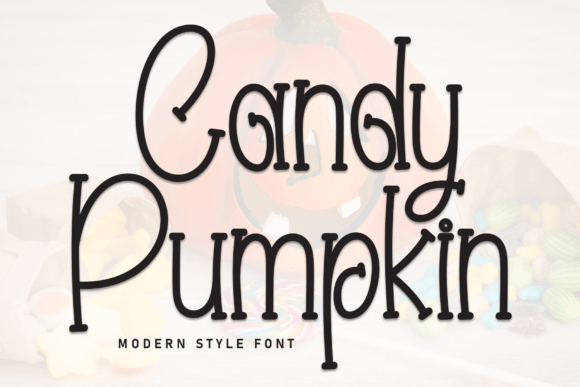
The Sweetest Font for Your Creative Projects: Candy Pumpkin
A Personal Review of Candy Pumpkin
So, what makes Candy Pumpkin so special? Let’s dive into the good stuff! 😊
- ✨ Cute and playful style: Candy Pumpkin has a fun, bouncy style that’s perfect for creating whimsical designs.
- ✅ Handwritten feel: The font has a lovely handwritten feel that adds a personal touch to any design.
- 🎉 Versatile: Whether you’re working on invitations, decorations, or any other project that needs a touch of sweetness, Candy Pumpkin is an excellent choice.
While Candy Pumpkin is an amazing font, there are a few things to keep in mind:
- 🤔 Limited use in formal designs: Due to its playful nature, Candy Pumpkin might not be the best fit for formal designs or projects that require a more professional tone.
- ⚠️ Some characters may not work well in small sizes: As with any handwritten font, some characters may not render well in very small sizes, so it’s best to use it at larger sizes for optimal results.
The Backstory Behind Candy Pumpkin
Candy Pumpkin was designed with the intention of creating a font that’s both playful and cheerful. The designer wanted to create a font that would evoke the feeling of trick-or-treating on Halloween night, with all the excitement and joy that comes with it. While the actual design process is shrouded in mystery, it’s clear that the designer succeeded in creating a font that’s perfect for any project that needs a touch of sweetness.